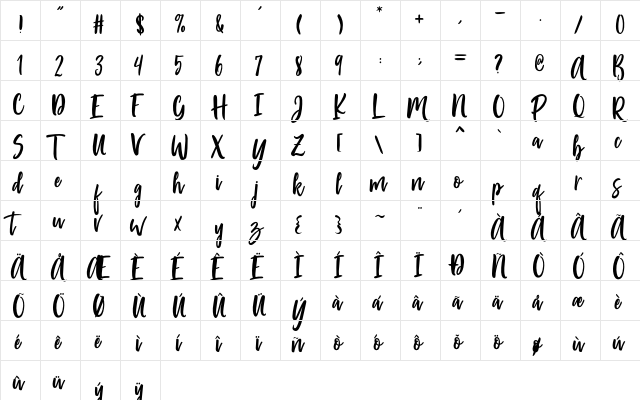
Passengers Script Regular
| Foundry | Pathero Studio |
| Designer | Pathero Studio |
Design Context for Passengers Script Typeface
Passengers Script brings a calligraphic fluidity to the page — its connecting strokes and expressive curves give it an unmistakably human quality.
Font Pairing: Combine Passengers Script with a simple geometric sans for maximum contrast — the tension between flowing curves and clean structure is a classic typographic pairing.
Pro Tip: Use Passengers Script for short runs of text — names, titles, or taglines. Extended body copy in script faces tires the eye quickly.